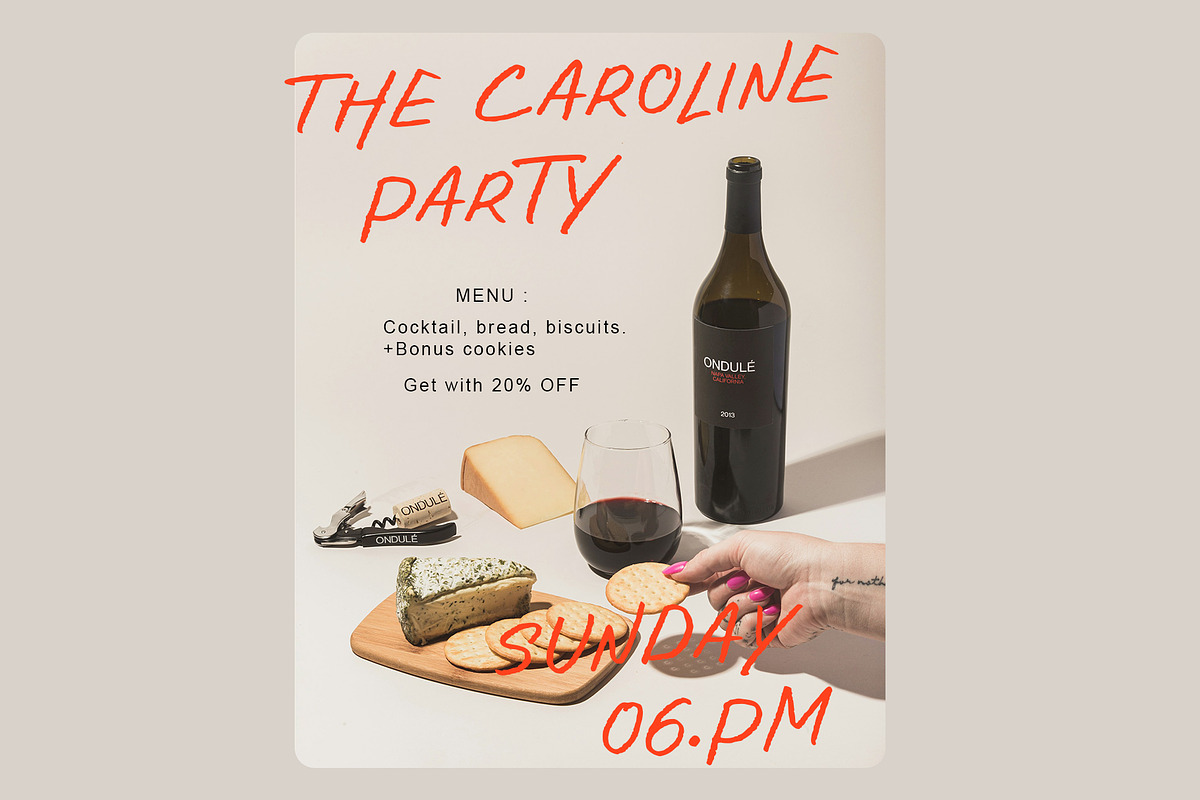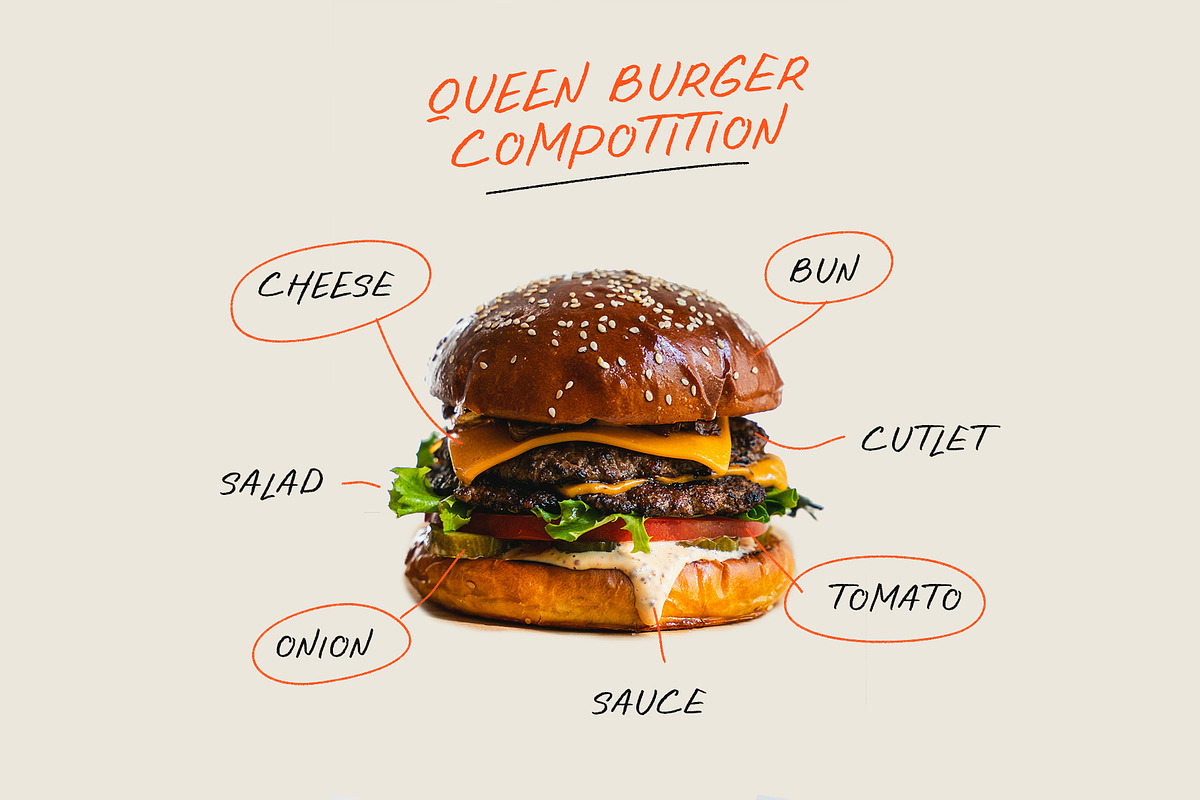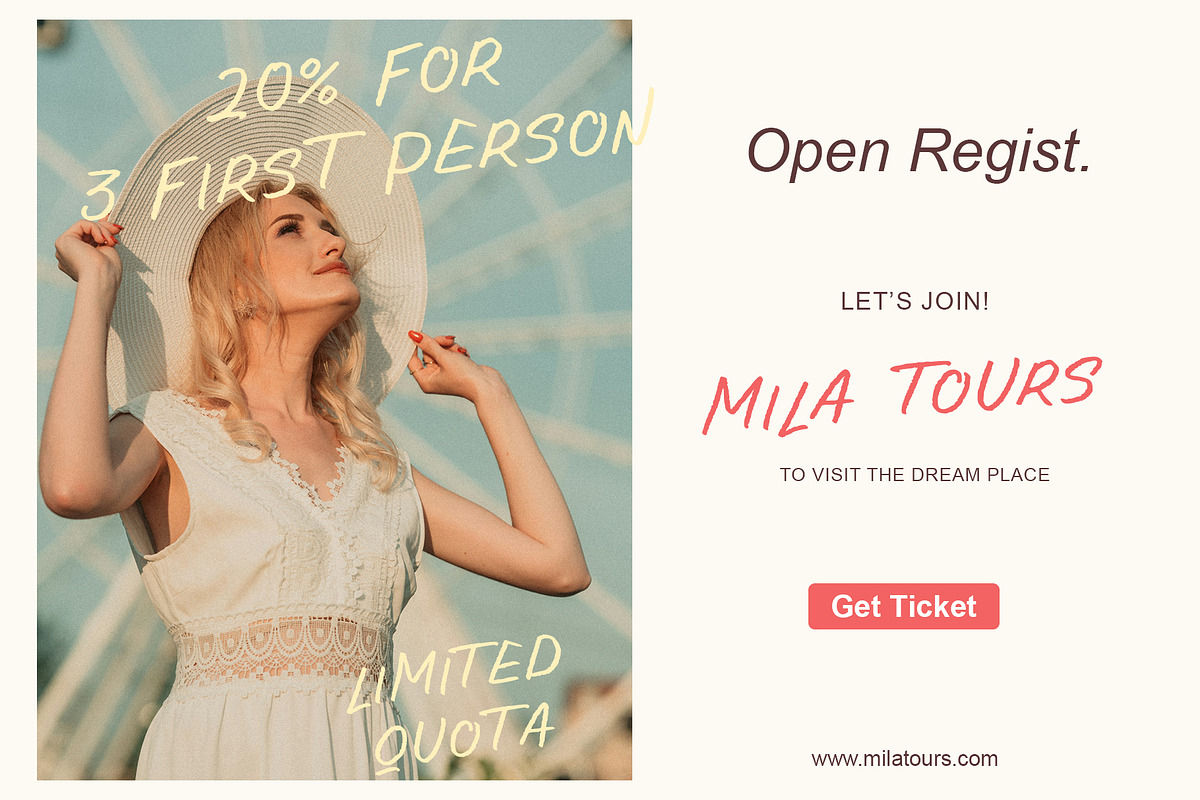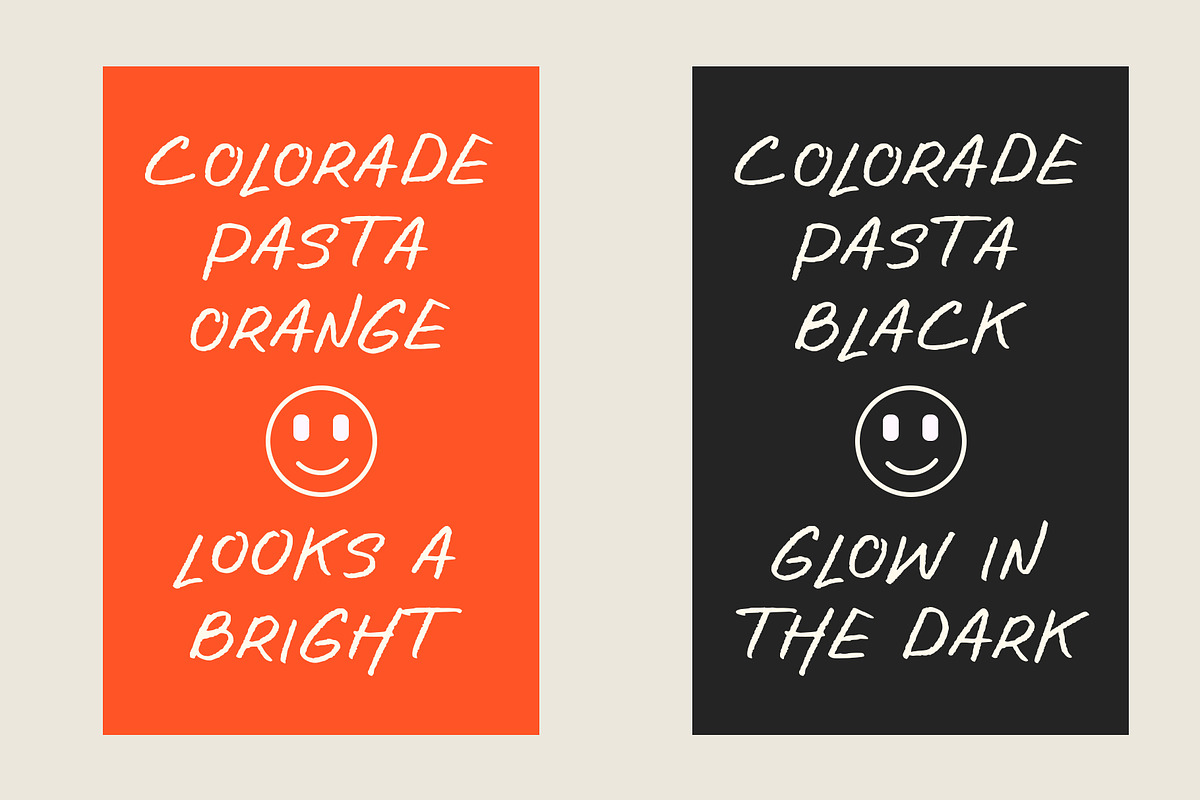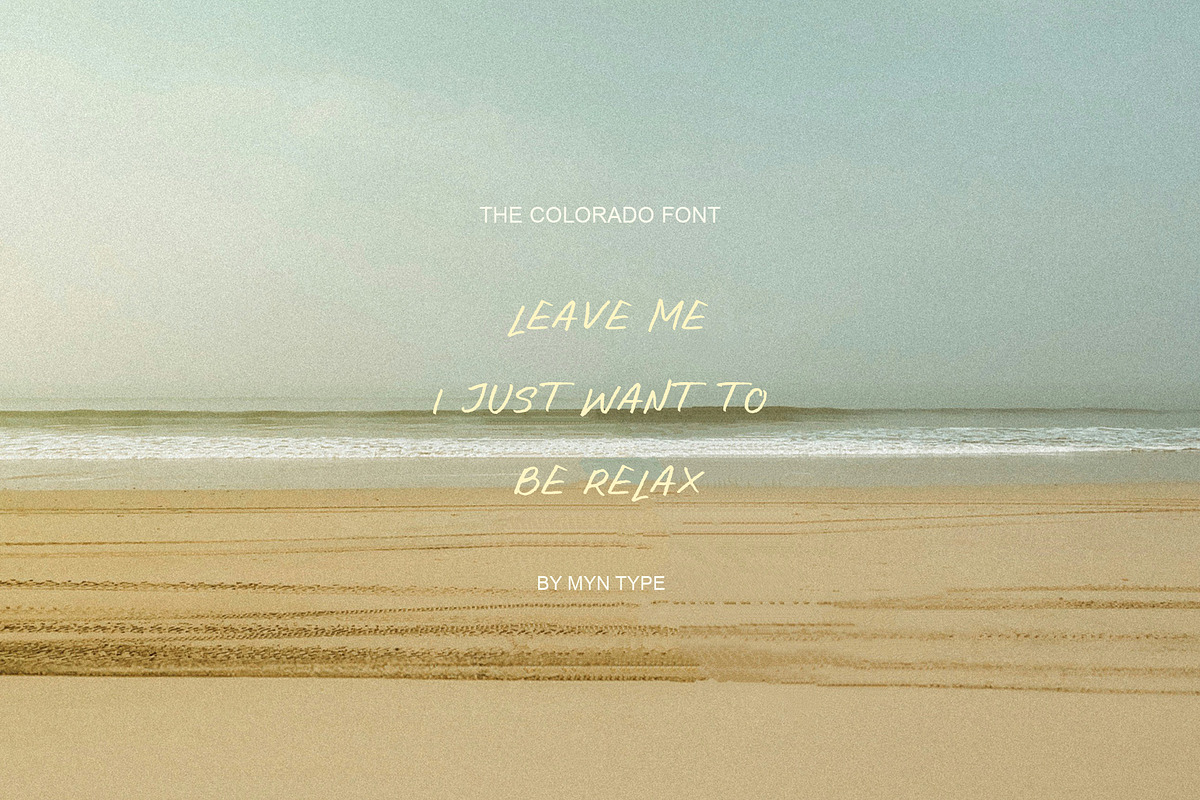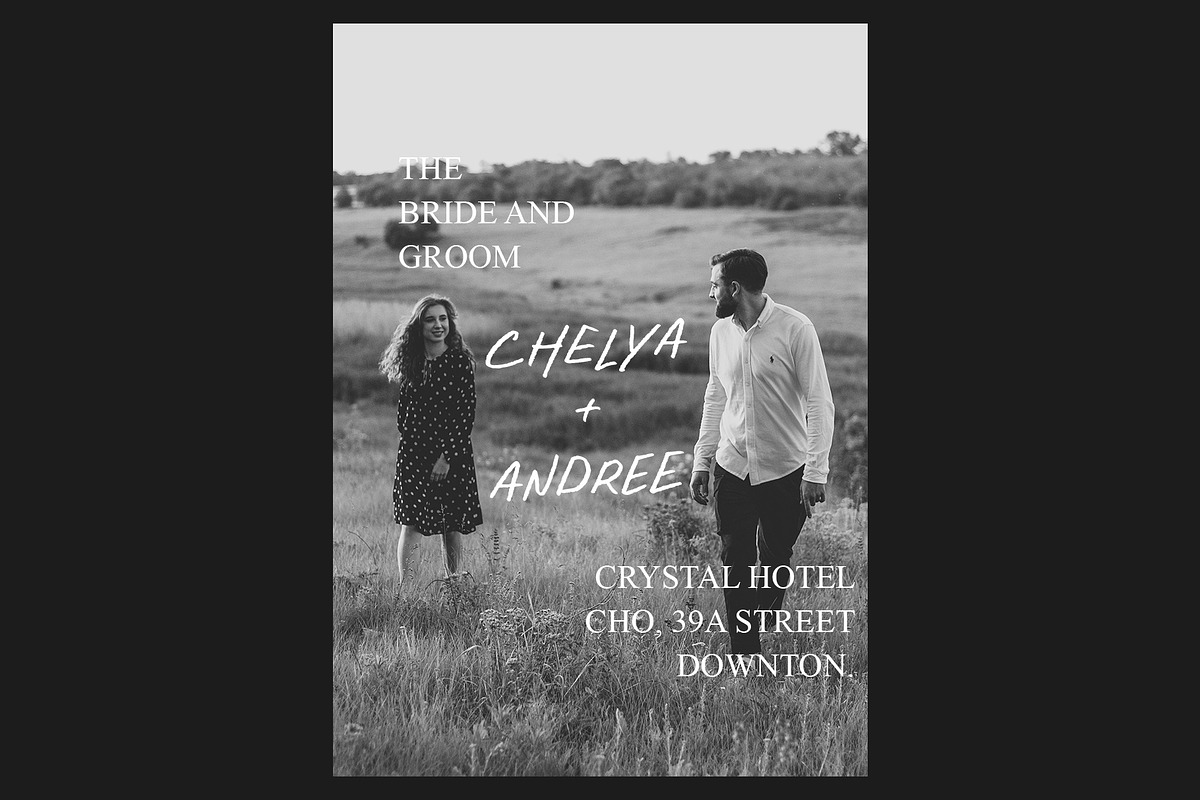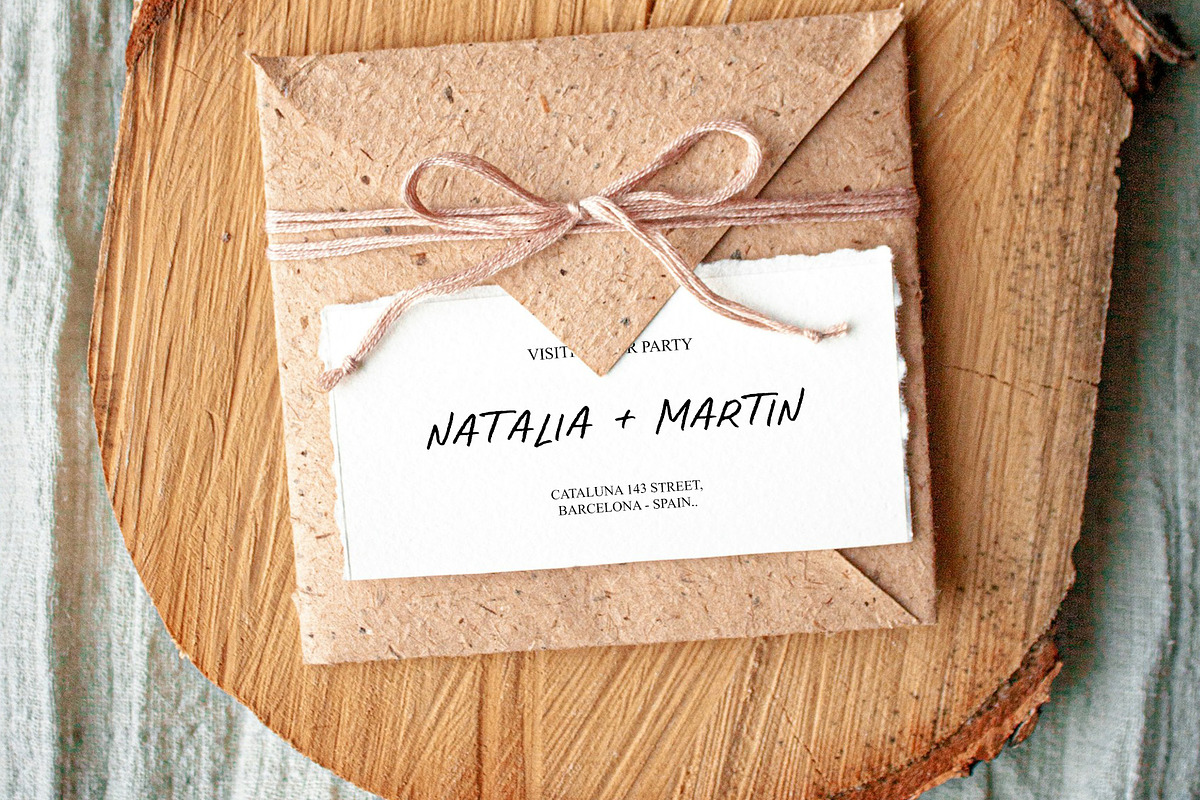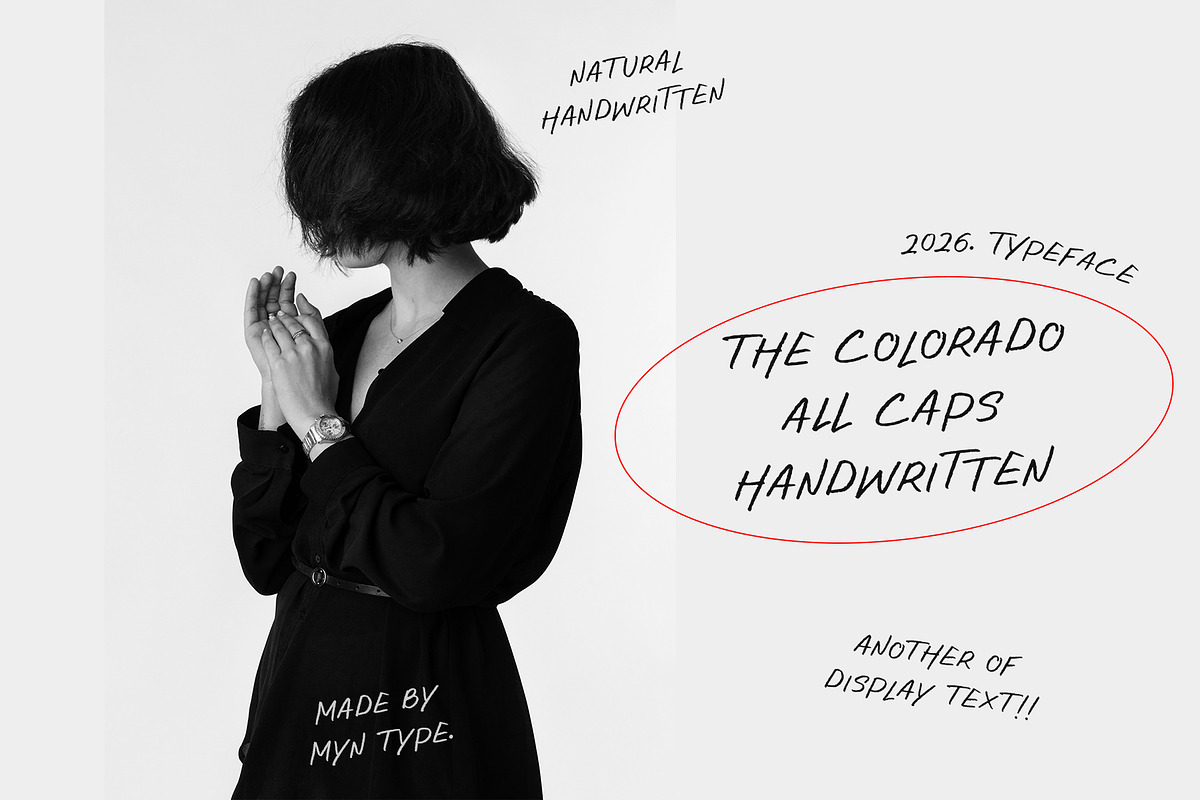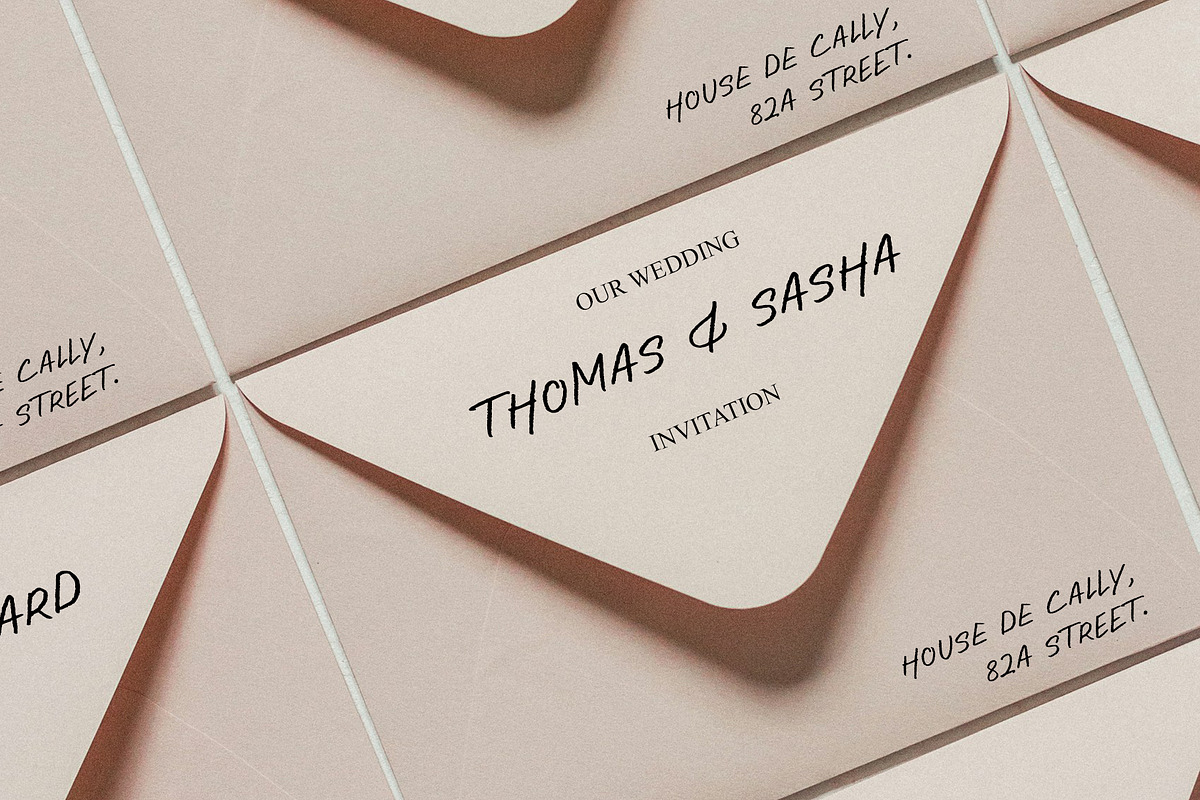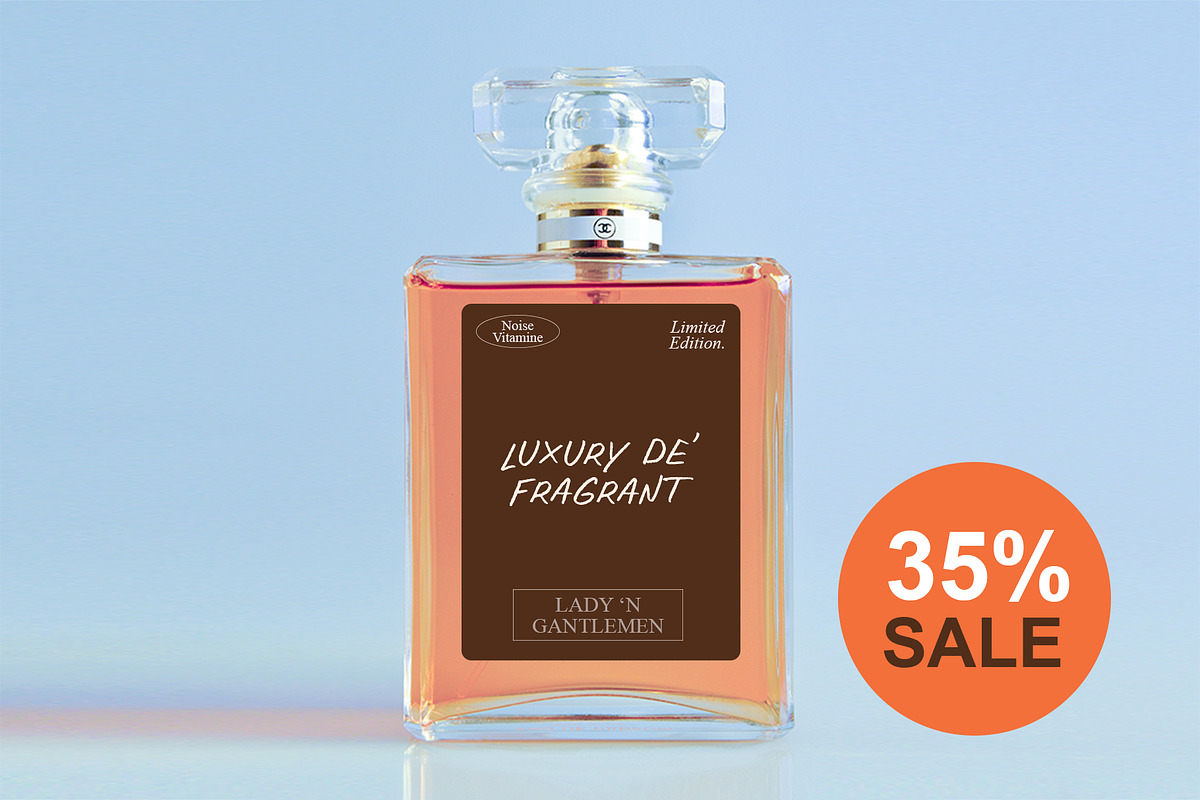
The Colorado - All Caps Handwritten
The Colorado is a natural all caps handwritten font that captures the authentic feel of real handwriting. Designed with organic strokes, the subtle imperfections give it a casual, authentic look, and the balanced spacing provides a minimalist look.
This font perfect for display design, logo design, wedding design, invitation design, branding design, product design, quote design, and other design elements that require a casual and minimalist touch.